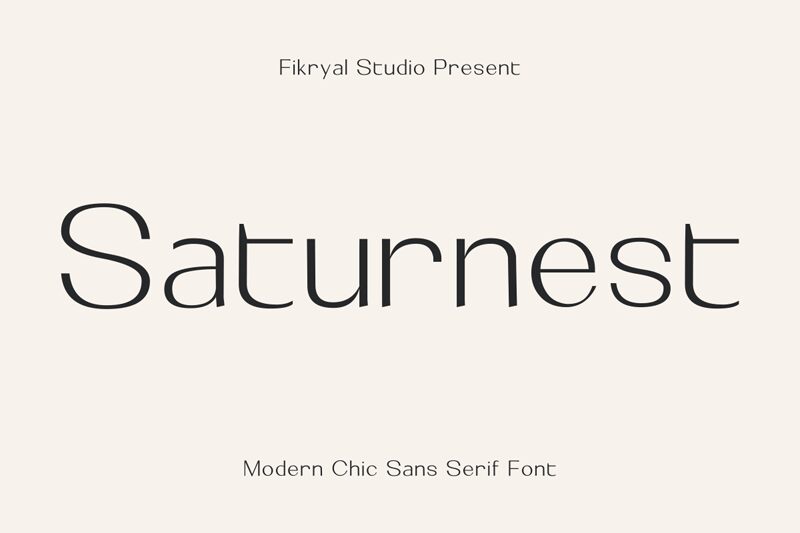
Saturnest Bold
Saturnest Bold font by Muhamad Fikry Nuralif of Fikryal Studio, from the Saturnest family, is a free refined sans serif font with a quietly luxurious feel. Its strokes stay clean and modern, but those gentle, flared ends add a soft, inky elegance—like lettering pulled from a well-made magazine masthead. The spacing feels airy, so even short words read with confidence.
Using Saturnest Bold shines on brand wordmarks, beauty and fashion packaging, editorial titles, minimalist posters, café menus, website hero lines, and social campaign graphics. Pair this free font with a neutral grotesk or a simple serif for body text, and give headlines a little extra tracking to let the shapes breathe.